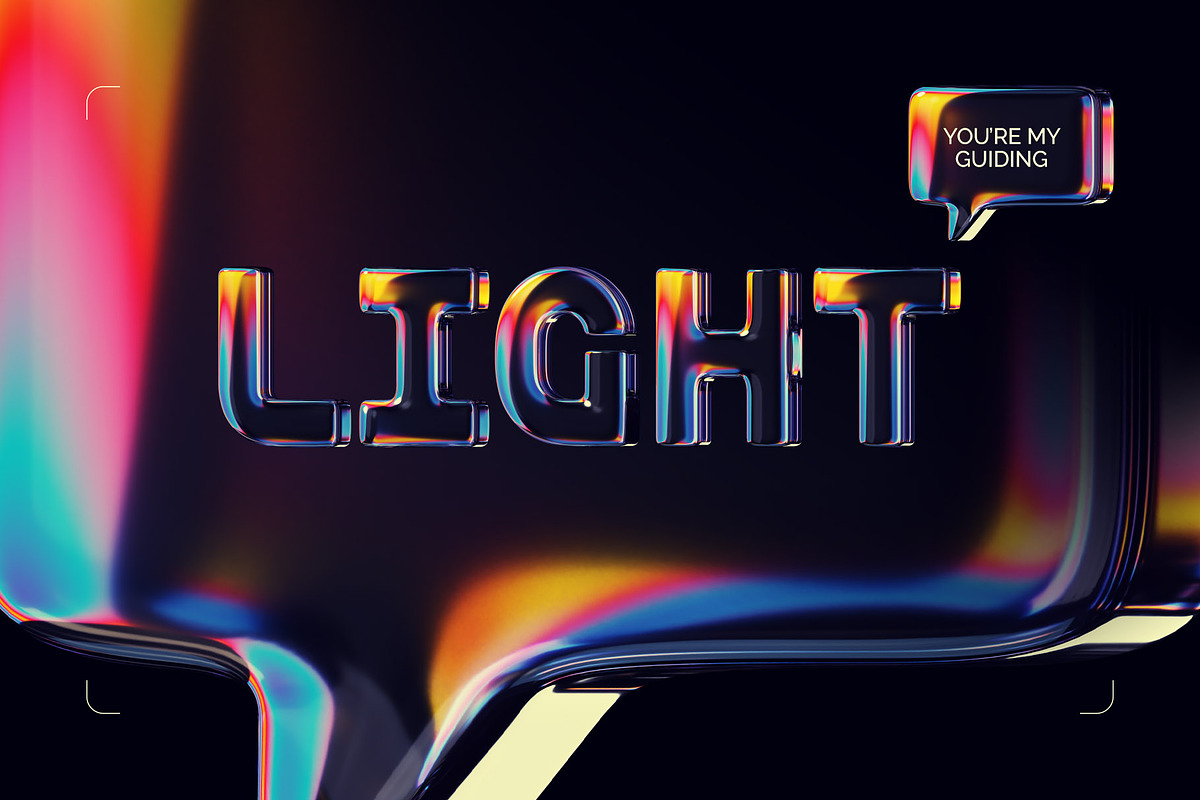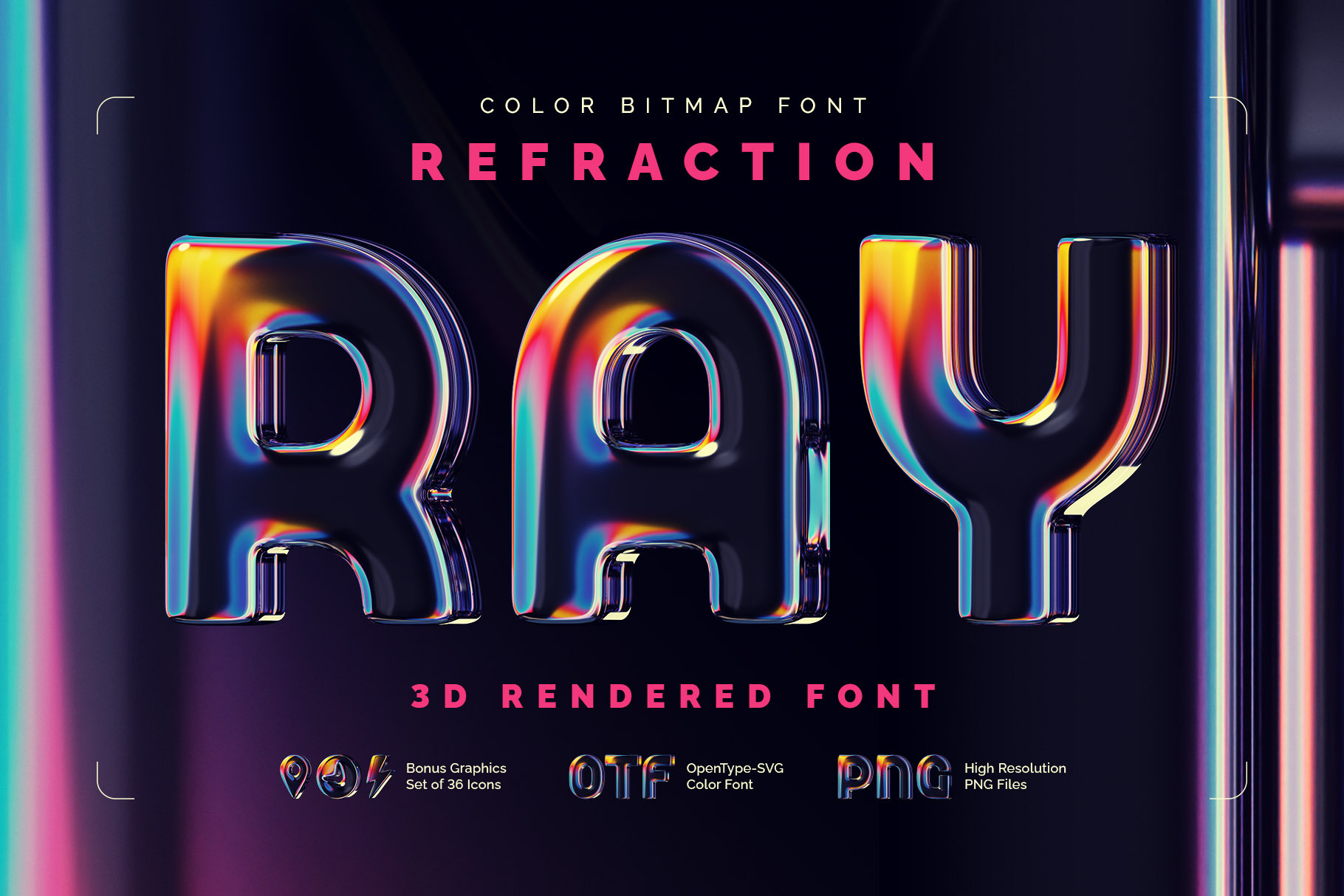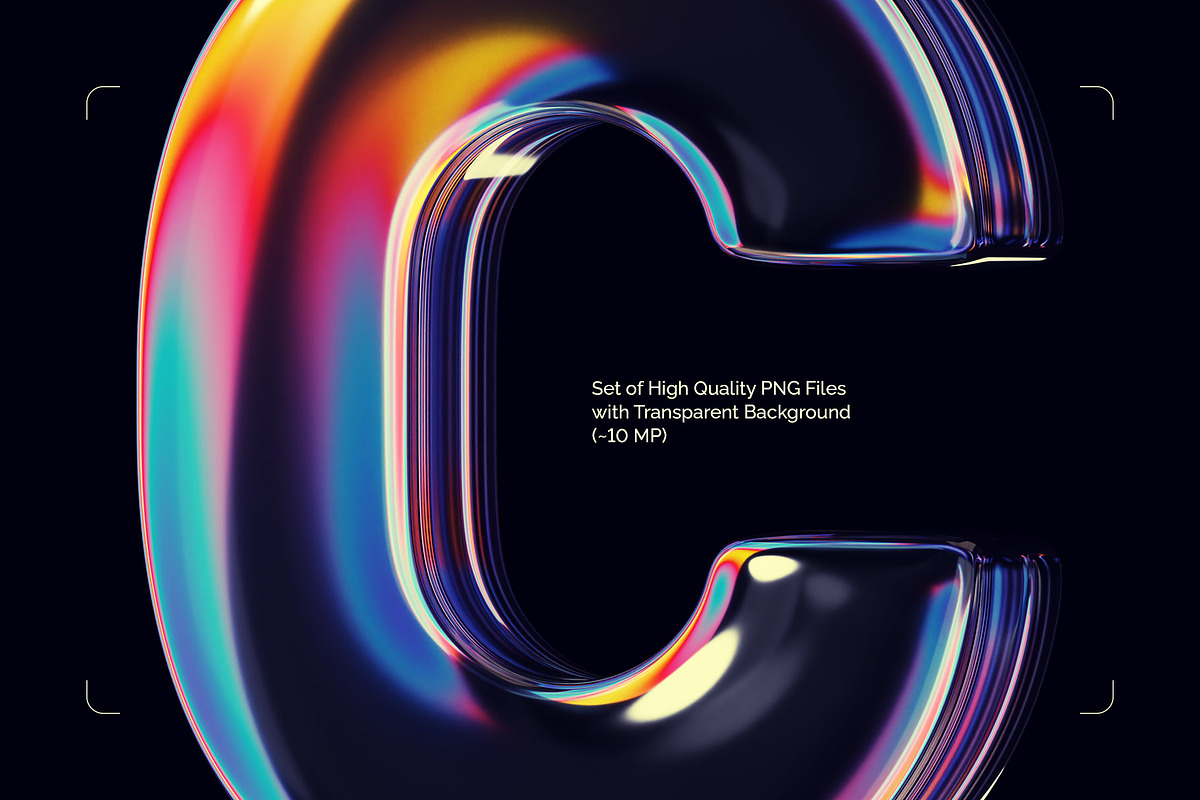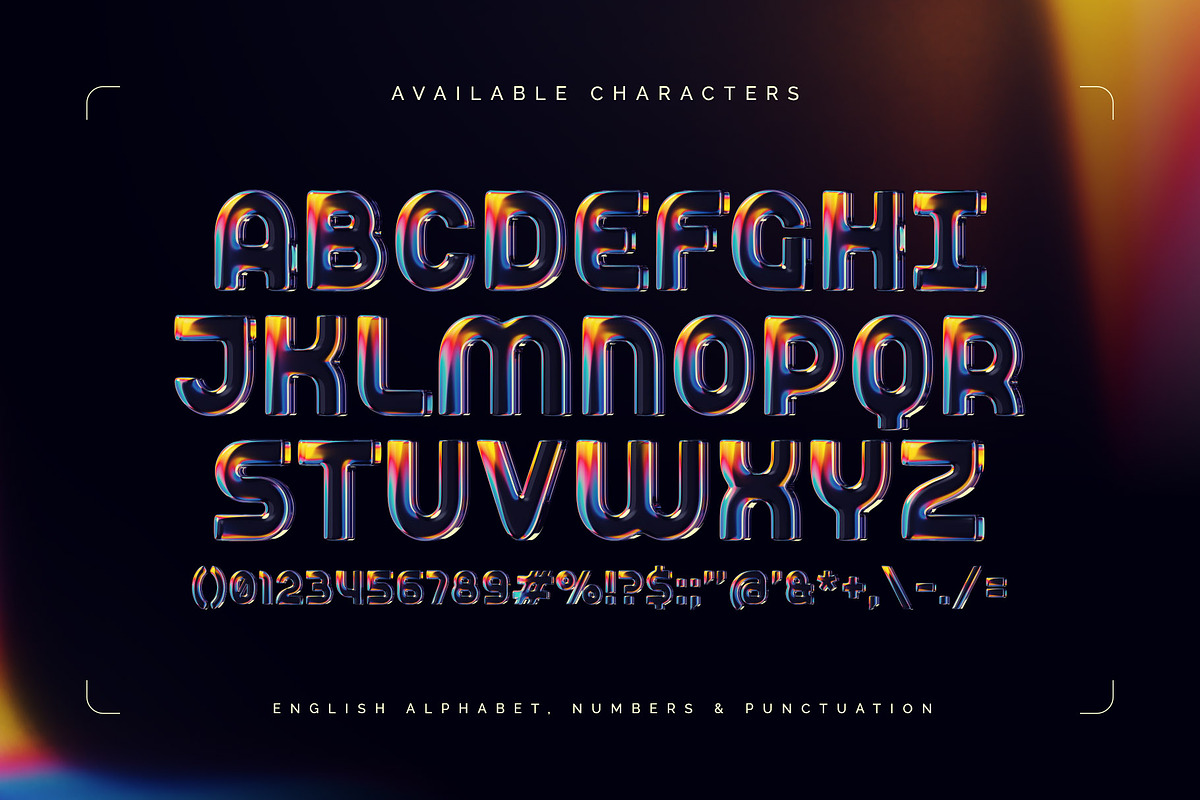
Refraction Ray - Color Bitmap Font
Introducing Refraction Ray, a colorful, creative font set. This 3D font has smooth, rounded letters with a colorful abstract glass texture that reflects light in subtle ways.
Consider that the font supports only the English language and basic punctuation. Be sure to review the included screenshot for a complete list of available characters.